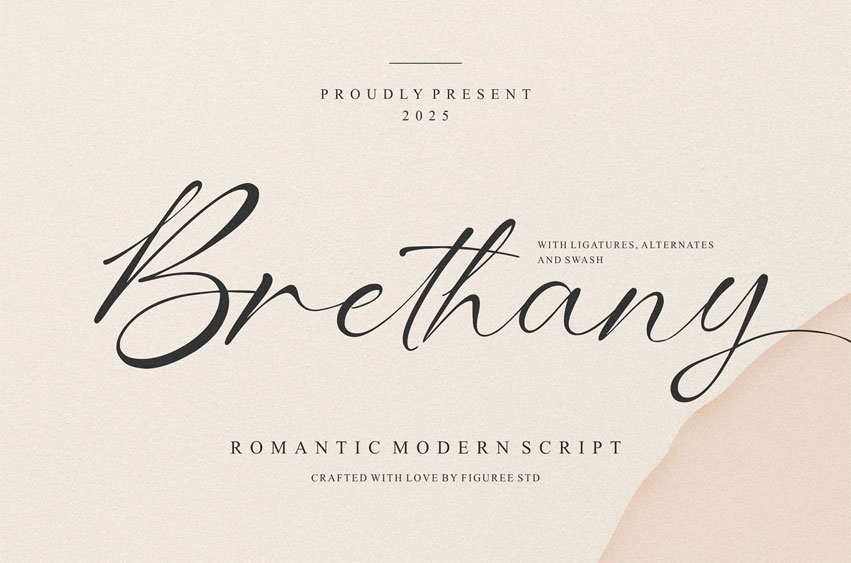
Brethany Font is a romantic modern script font crafted to bring warmth, elegance, and emotion to your design projects. With smooth curves, natural handwritten strokes, and a perfect balance of modern and classic beauty, Brethany is ideal for creating heartfelt and timeless visuals.
This font is designed to evoke emotion — whether it’s on a wedding invitation, a greeting card, a personal logo, or a quote layout. Each letter flows gracefully, creating a sense of intimacy and sophistication that draws the viewer’s attention.
Brethany features uppercase, lowercase, numerals, punctuation, and extensive multilingual support. It also includes beautiful alternates, ligatures, and swashes that allow you to personalize your text effortlessly. You can mix and match the stylistic sets to achieve unique results that perfectly suit your creative vision.
Key Features
- Uppercase, Lowercase, Numbers & Punctuation*
- Support Multilingual for diverse language use.
- Alternates, Ligatures & Swashes to add variety and personality.
- Smooth Handwritten Flow for an authentic and elegant look.
- High Legibility perfect for quotes, invitations, titles, and packaging.
- Modern Romantic Feel that suits any heartfelt or expressive project.
Why Designers Love It Designers love Brethany for its versatility and charm. The handwritten style feels organic yet refined, making it perfect for both digital and print projects. Whether you’re designing a romantic card, a wedding stationery set, or inspirational quotes for social media, Brethany adapts beautifully to every medium.
Its smooth, connected letters and multiple stylistic alternates allow endless creative combinations. The addition of swashes adds a graceful flourish to your text, while ligatures help maintain a seamless, handwritten appearance. Brethany doesn’t just decorate your design — it adds emotional depth and storytelling.
The multilingual support also makes it an excellent choice for global creatives who need consistent quality across various languages. With its soft rhythm and polished aesthetic, Brethany helps elevate your typography from ordinary to memorable.
If you’re searching for a romantic modern script font that blends heartfelt emotion with professional quality, Brethany is your perfect match. Every curve, line, and stroke has been carefully designed to express beauty and warmth in every word. Use it to bring an elegant touch to your invitations, heartfelt quotes, or creative projects — and watch your typography come alive with personality.
Brethany Font Preview